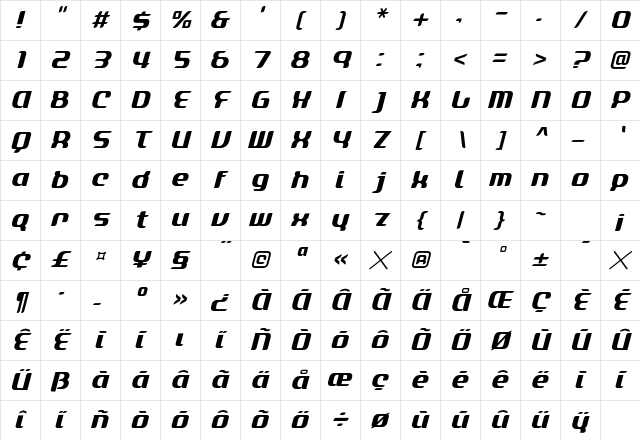
Complete ACRYLIC2081 ALP31 glyph index. Displaying only characters natively supported by ACRYLIC2081 ALP31 font.
ACRYLIC2081 is a composed and adaptable typeface that performs quietly and consistently across a wide range of design contexts.